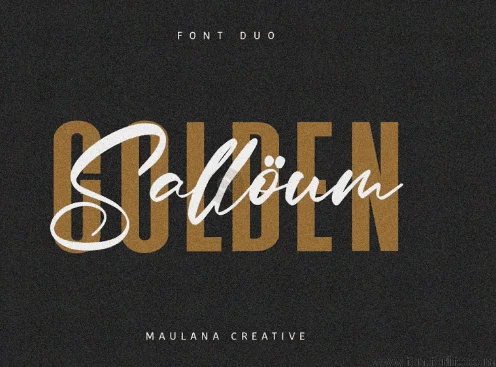
Salloum Golden Font Duo Font
Salloum Golden Font is perfect for luxury brand identities, premium jewelry packaging, high-end fashion magazines, elegant wedding invitations, upscale restaurant branding, prestigious award certificates, exclusive event materials, sophisticated cosmetic labels, opulent real estate marketing, and refined designs that demand the ultimate expression of wealth, prestige, and timeless elegance.
This font is exciting because it embodies absolute luxury and golden sophistication through exquisitely crafted letterforms that radiate prestige, exclusivity, and royal elegance. The stunning character design captures the gleaming brilliance of precious metals and the refined taste of elite audiences, making it ideal for projects that need to communicate supreme quality, exceptional value, and the distinguished presence of truly premium offerings.
The Salloum Golden Font family typically includes uppercase and lowercase characters, numerals, punctuation marks, ornamental flourishes, decorative ligatures, and elegant glyphs that enable designers to create lavish compositions worthy of the most discerning clientele.
Whether you're crafting ultra-premium brand identities, designing exclusive luxury materials, or developing marketing collateral for high-end businesses serving affluent audiences, Salloum Golden Font Free Download provides the typographic embodiment of golden excellence. Its magnificent character and opulent styling make every project feel more prestigious and valuable, ensuring your designs brilliantly convey luxury, exclusivity, and the extraordinary quality that defines truly exceptional brands and commands premium positioning.